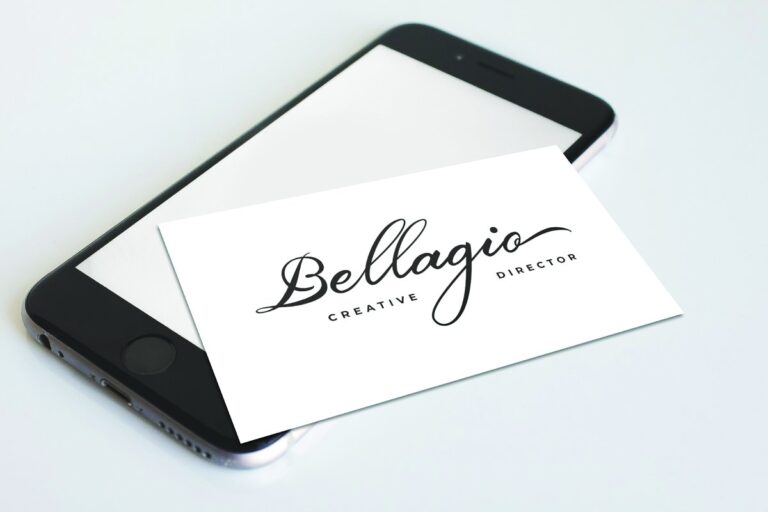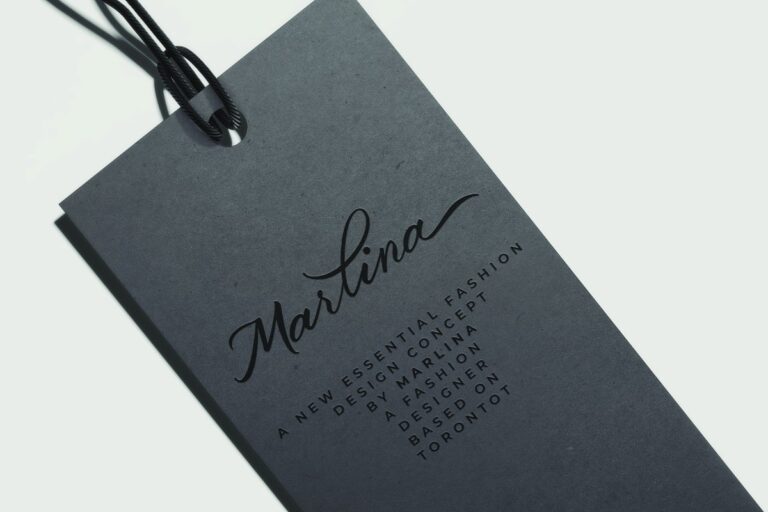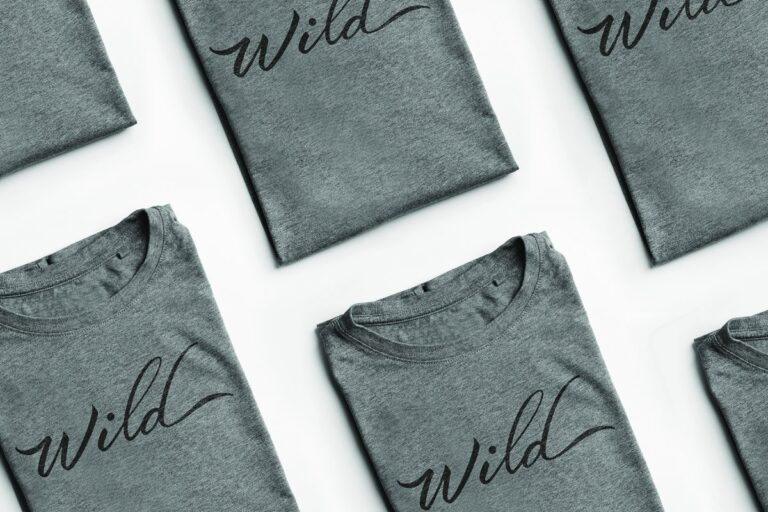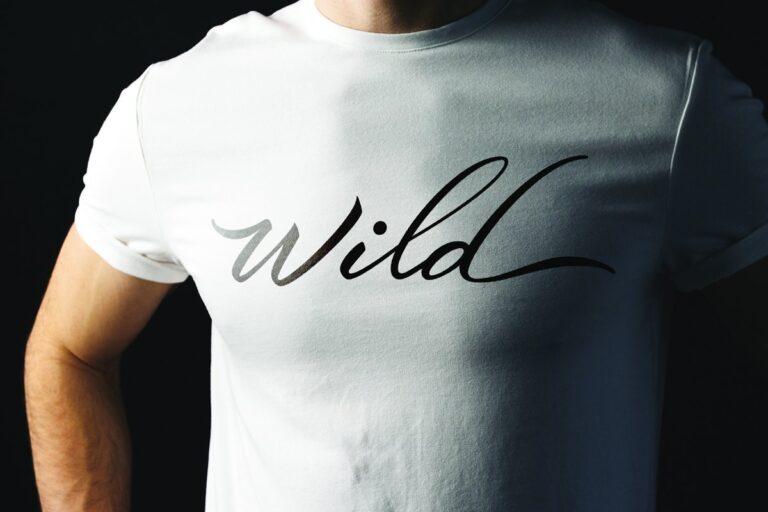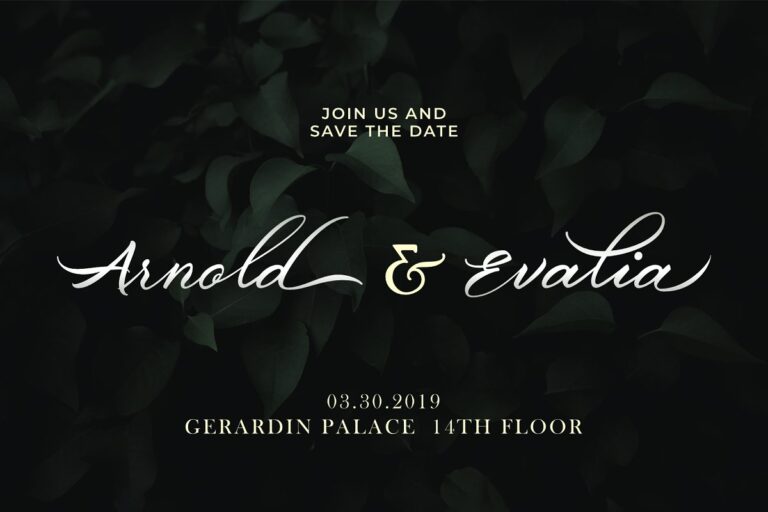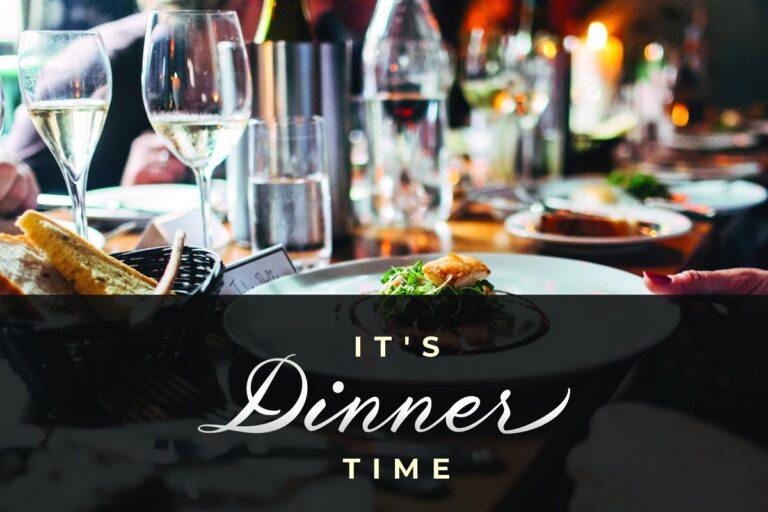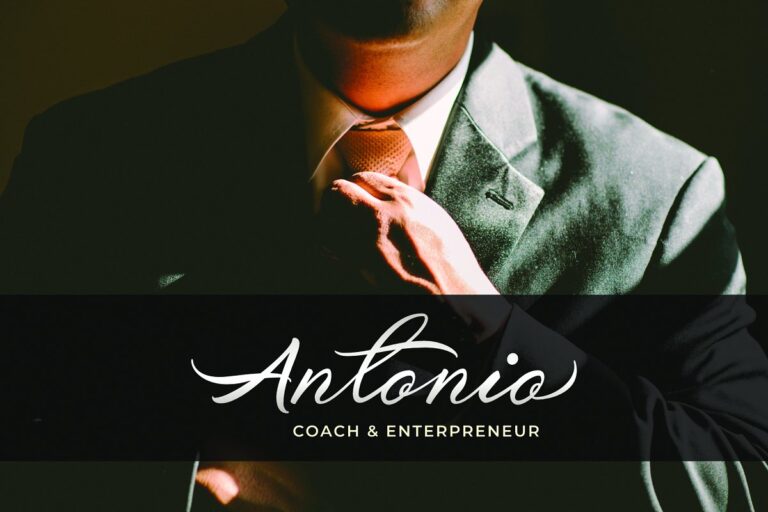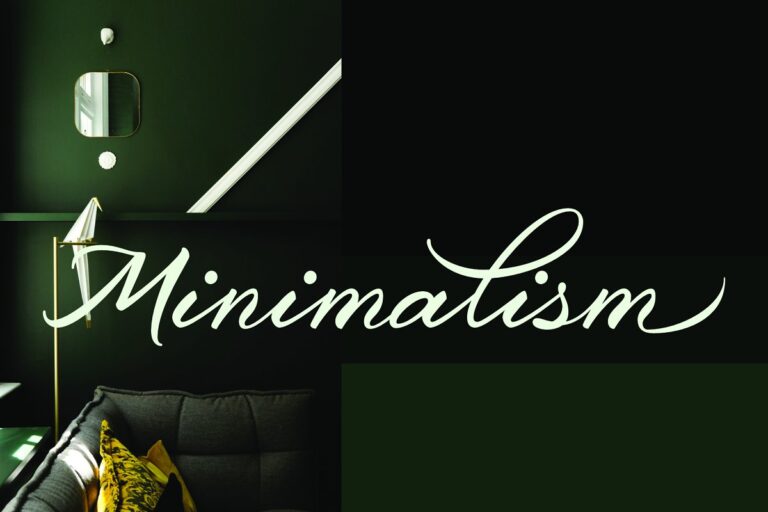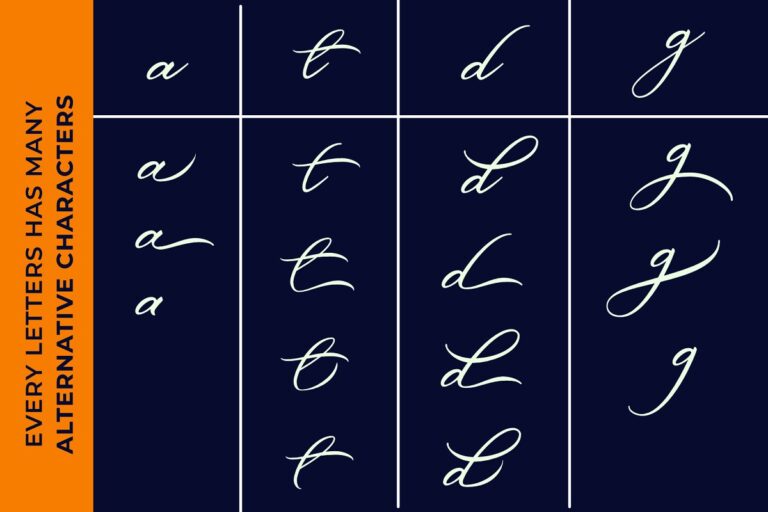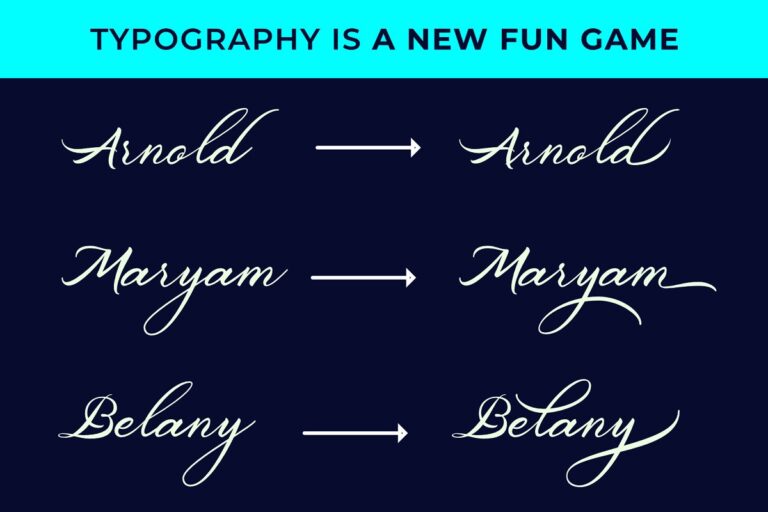
BELGIAN SIGNATURE
Belgian Signature is a stylish modern calligraphy script font that extremely perfect for branding, wedding invites and cards,label and more. This new script font includes opentype feature that allows you to play freely your typography game.
- Init Form
- Ligature
- Staylishtic set
- Alternative Character
- Fina Form